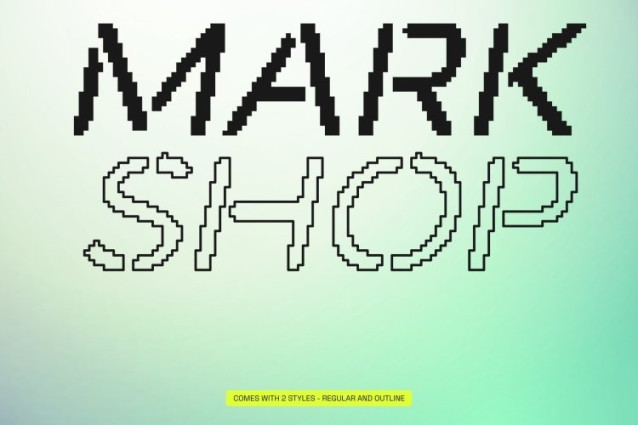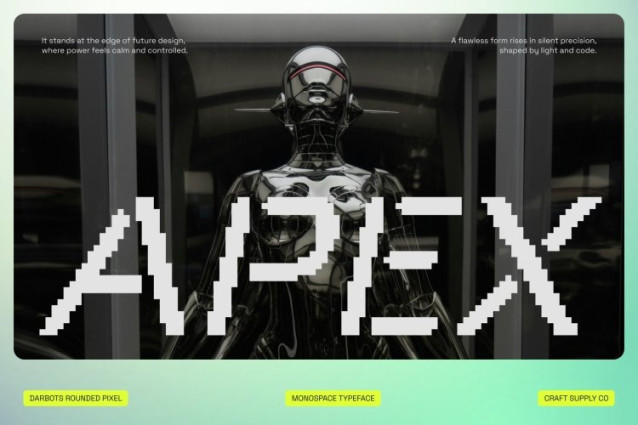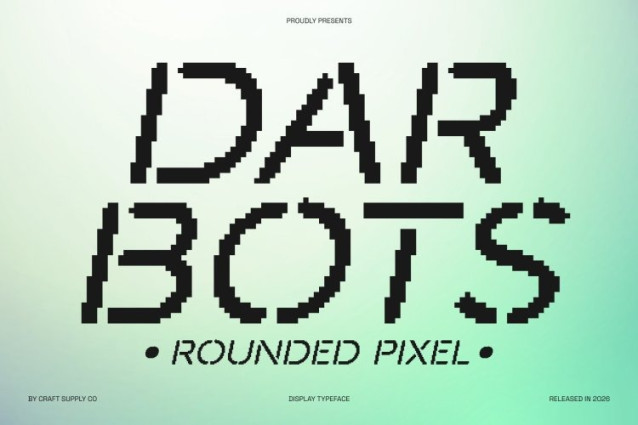
Darbots Rounded Pixel Font
Darbots Rounded Pixel Font This is a modern sans serif stencil font that merges contemporary elegance with retro digital charm. Designed with sharp corners and a rigid, pixel-inspired structure, it evokes the nostalgia of 8-bit graphics while maintaining a sleek and professional appearance. Its stencil style offers a clean, minimalistic aesthetic, making it highly versatile for a variety of design projects.
Low Contrast Appeal
With low contrast strokes, the font balances subtlety and readability, ensuring that every character remains clear and impactful. The combination of modern sans serif elements with pixelated geometry gives it a unique identity perfect for designs that need both sophistication and a playful retro feel.
Nuanced Modernity with Retro Flair
This font is ideal for branding, digital interfaces, game design, signage, or any project that seeks a fusion of contemporary and vintage aesthetics. The pixel-inspired, bitmap style adds a nostalgic touch without compromising modern legibility, allowing designers to craft visuals that feel both timeless and current.
Versatile Application
This font captures nuanced modernity while honoring the charm of early digital typography. Its clean stencil lines, geometric precision, and retro flair make it an exceptional choice for projects that aim to stand out with style, character, and a subtle nod to classic 8-bit design.